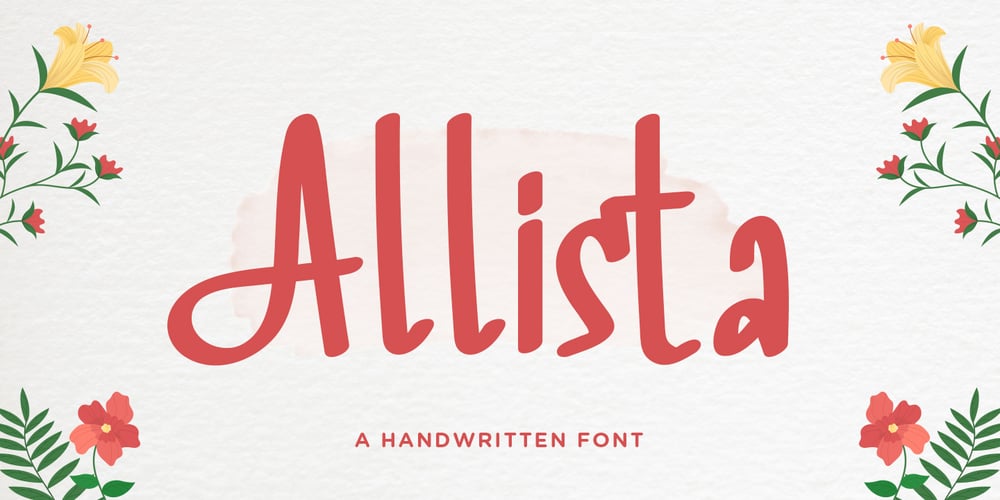
Allista Font Family was designed by Hilmius Akbar and published by Typefactory. Allista contains 1 styles and family package options. Allista is a fancy handwritten font, carefully handcrafted to become a true favorite.This font will look outstanding in any context, whether it’s being used on busy backgrounds or as a standalone headline!